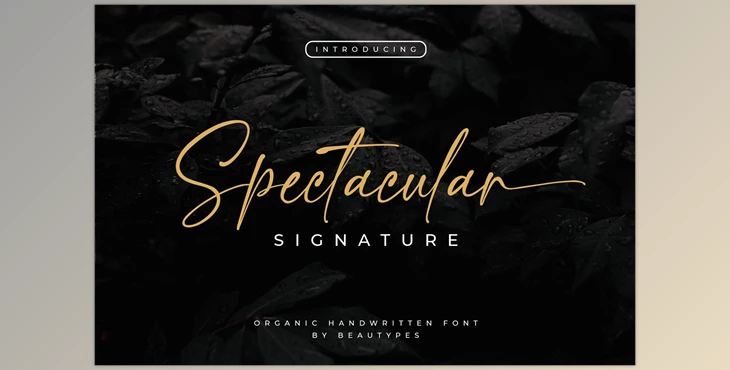
Spectacular Signature Handwritten organic font appropriate for branding, signatures wedding invitations, promotional packaging for products, as well as other requirements.